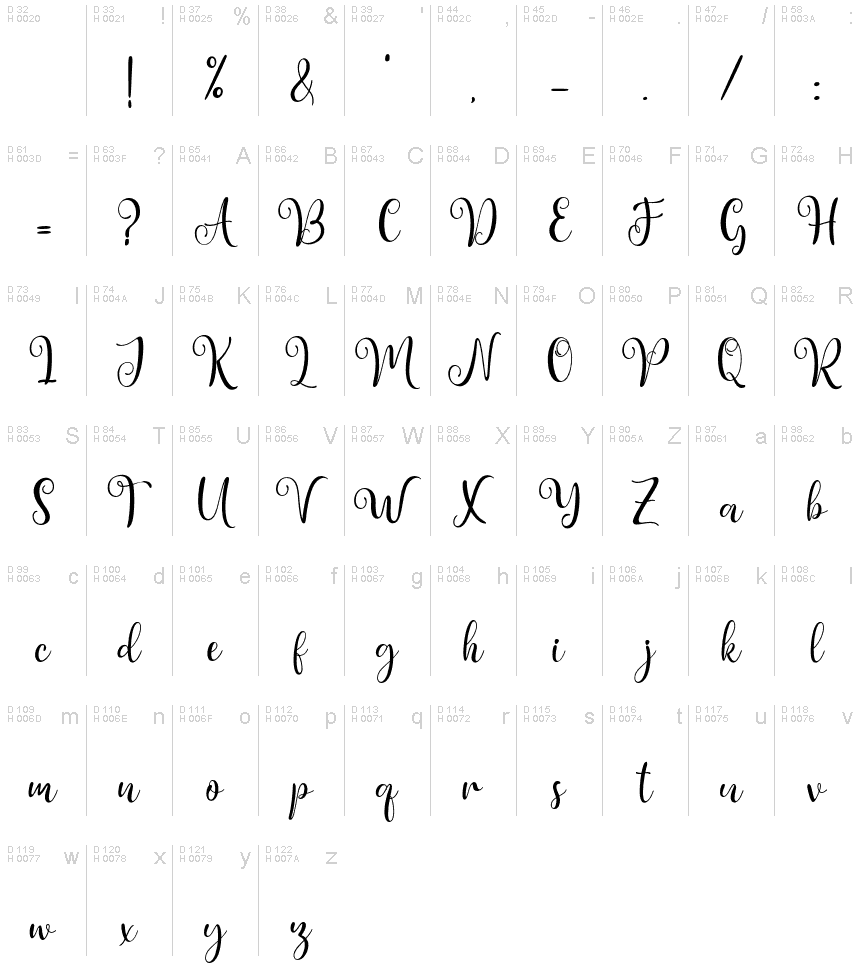
Roseting-Regular
Introducing Roseting, the elegant calligraphy font by Type on Studio. With its light weight, Roseting is perfect for wedding invitations, greeting cards, and other formal designs. Its flowing curves and delicate strokes add a touch of sophistication to any project.